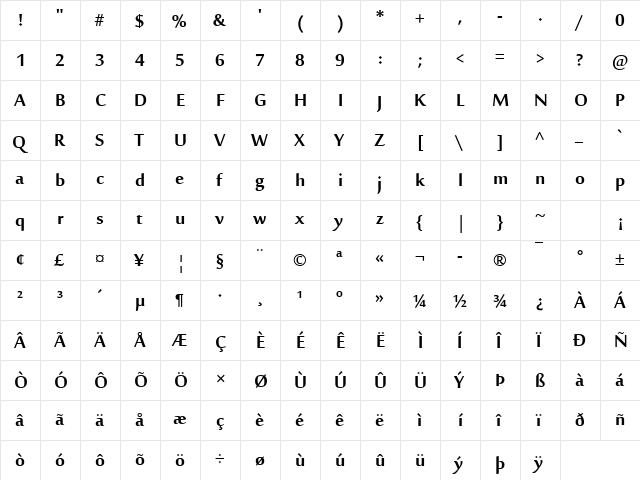
Sakkal Majalla Bold
| Foundry | Mamoun Sakkal, Sakkal Design |
| Designer | Mamoun Sakkal, Sakkal Design and Steve Matteson, Ascender Corp. |
Design Context for Sakkal Majalla Typeface
Sakkal Majalla offers clean, dependable letterforms without strong stylistic allegiance, making it a practical choice for designers who need flexibility. The heavy weight commands attention and anchors typographic hierarchies.